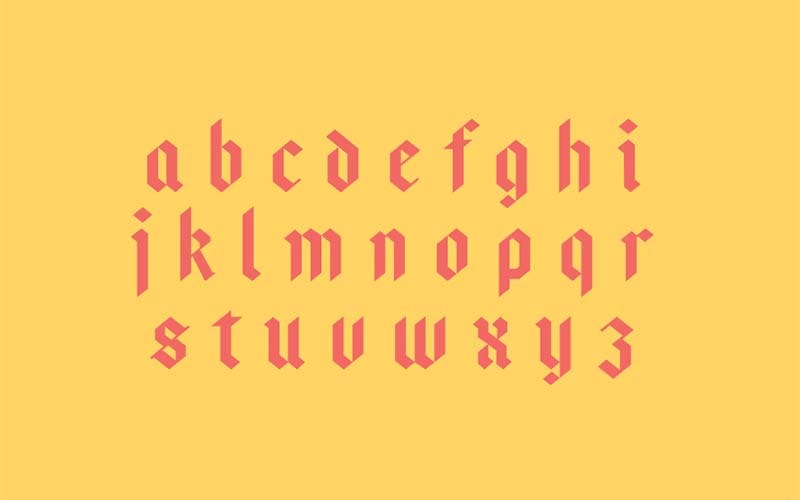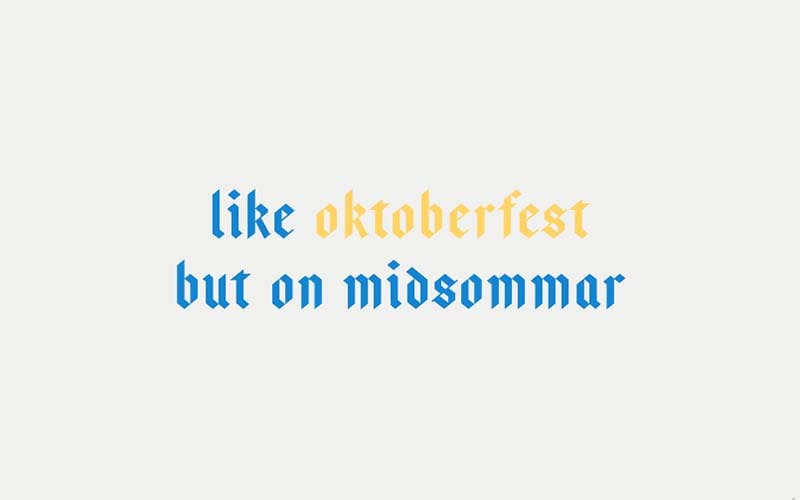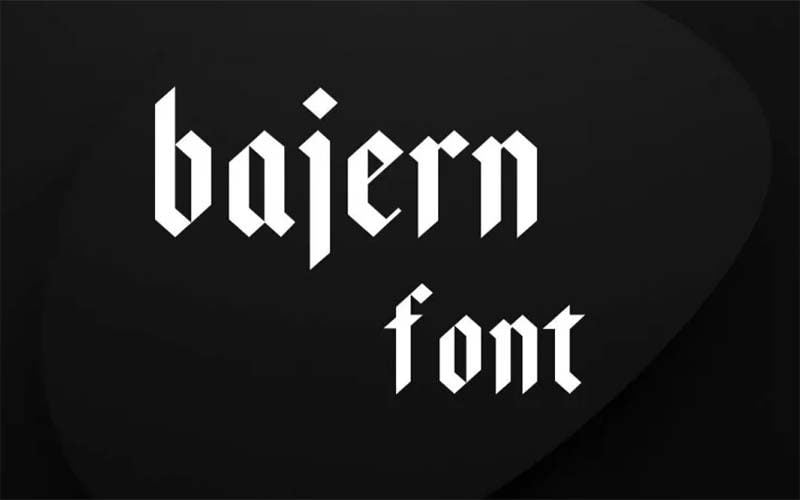
Hey everyone! I’m glad to introduce you to unique fonts, it’s Bajern! It is a display, gothic, and decorative typeface that is a great addition to your creative projects. That was designed and shared by Anton Gothic.
This amazing typeface comes in a single regular style with Opentype features. This is a font, that was inspired by German frakturs with a twist of Sweden.
Because the texture features a forged shape and a non-cursed layout. Therefore, Bajern will prove to be an ideal font for you. Because it has a unique pattern compared to any other font and is perfect for a classic design.
That way, you can use it wherever you like. Because a lot of designers are already using this amazing typing fee and often get a sensation in the design industry.
Bajern Font
You can openly use this amazing font for almost every place like creating a few video titles, logo designs, poster making, unique emblems, awesome magazines, special events cards, banner ads, hoarding printing, and so on.